Typography acts as the visual voice of your design, dictating both the emotional tone and the ease of navigation. Sans-serif typefaces have become the industry standard for their clean lines and effortless legibility. Their adaptability makes them a reliable staple for everything from high-resolution print to low-latency digital interfaces.
This curated selection features a range of no-cost sans-serif fonts tailored for web development, brand identity, and user interface (UI) design. Whether you need a high-impact font for a hero section or a highly readable typeface for dense body text, this list covers a spectrum of styles – from ultra-minimalist to strikingly bold.
Why This Collection Matters:
- Versatility: These fonts transition seamlessly between physical and digital environments.
- Purpose-Driven: You’ll find specific options optimized for micro-copy, UI components, and large-scale editorial headlines.
- Aesthetic Range: Choose from a variety of weights and personalities to match your specific brand guidelines.
Whether you are a solo freelancer, a creative hobbyist, or a seasoned design professional, these fonts are designed to elevate your output. From logo creation and app development to social media assets and professional presentations, selecting the right sans-serif is the most critical step in refining your visual communication.
Confine Sans-Serif Typeface
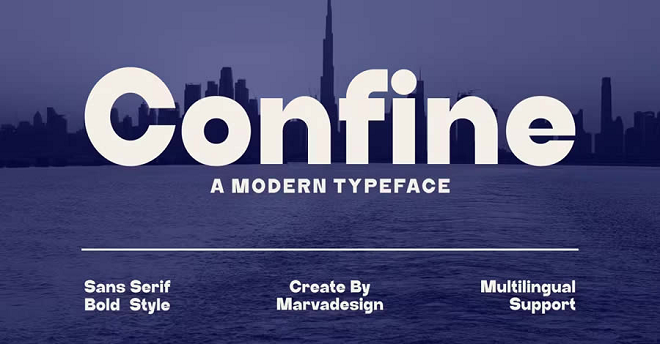
Kelson Sans Font
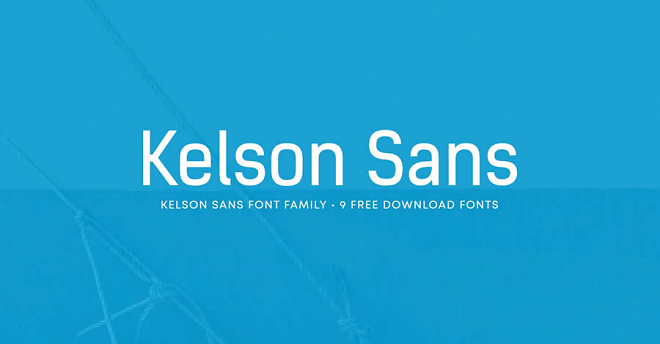
Bourbon Grotesque Font
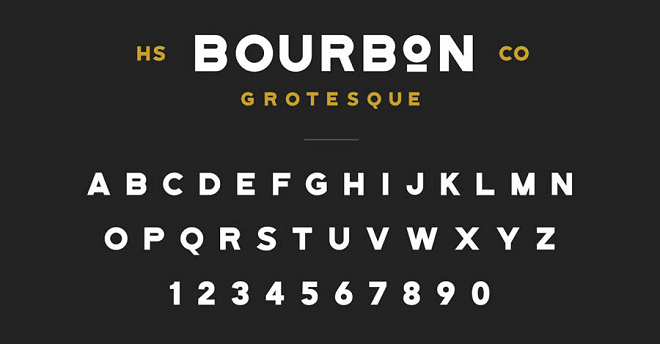
Rosity Modern Sans-Serif Typeface
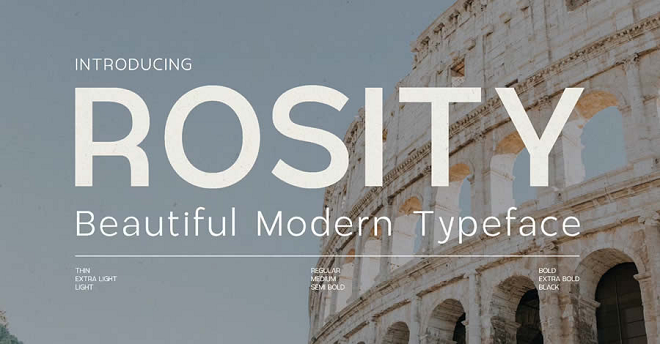
Airone Extra-Bold Sans-Serif Font
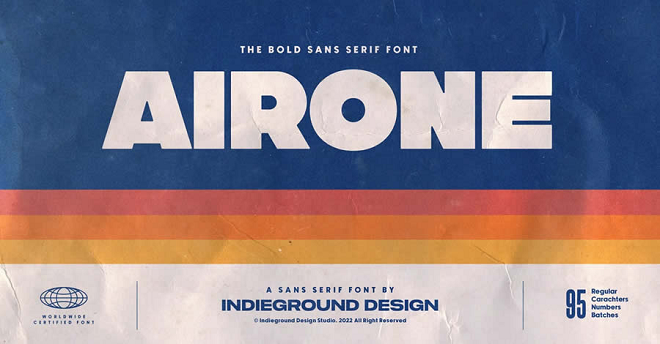
Rostack Bold Heading Font
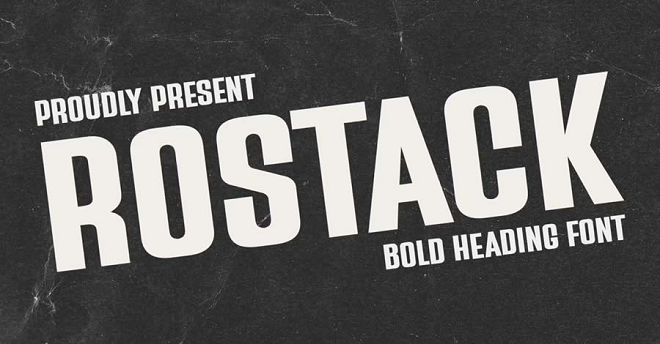
Nexa Sans-Serif Font Family
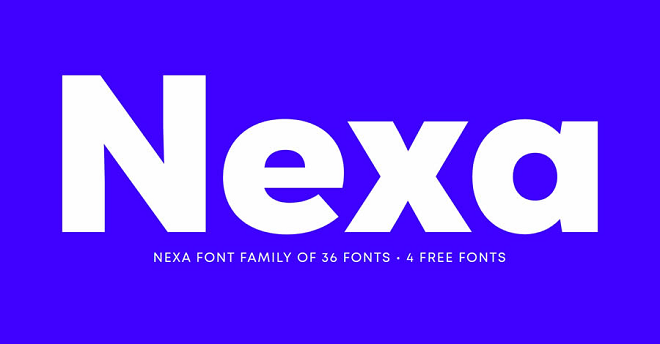
Faune Font Family
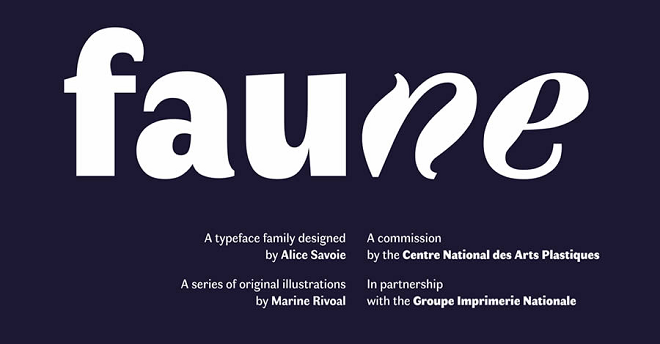
Alegreya Sans HT
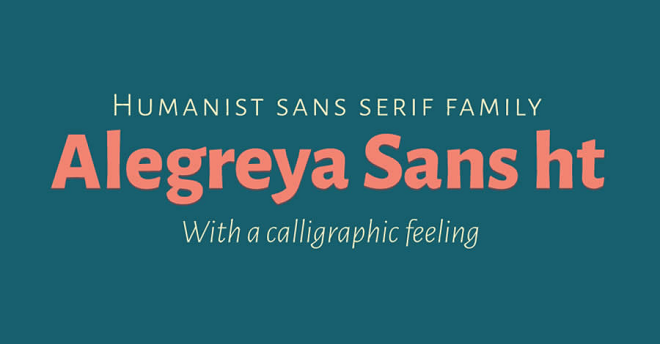
Peace Sans
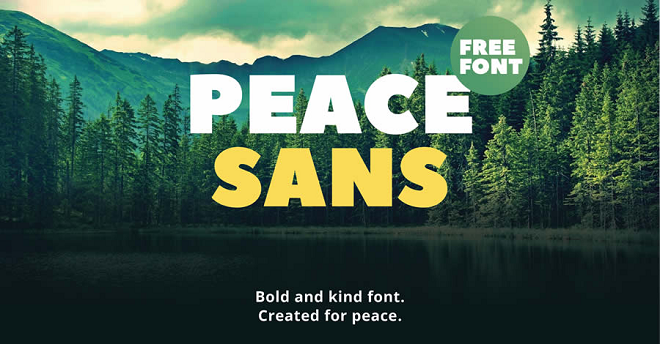
Canter Sans Serif
Sabado Sans Serif